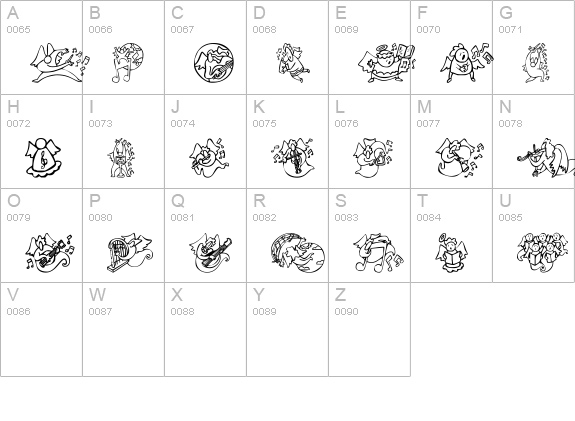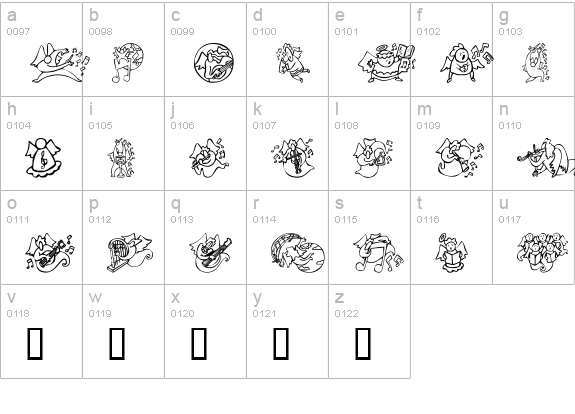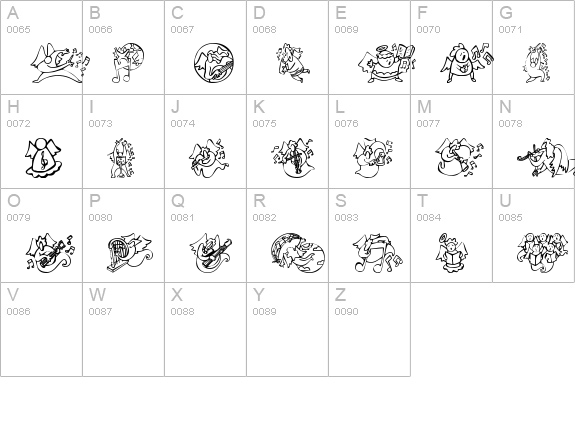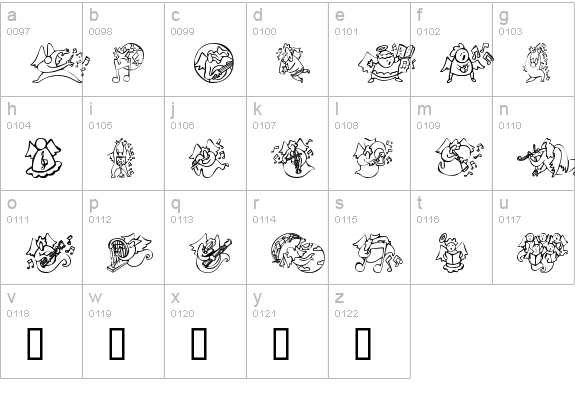
KR Music Angels Font Details
Introducing the enchanting KR Music Angels font, a whimsical and delightful typeface that will transport you to a world of musical wonder. Its graceful curves and playful design evoke the spirit of music and magic, making it the perfect choice for any project that needs a touch of whimsy. This charming font is not only visually appealing but also versatile, suitable for a wide range of creative applications. Whether you are designing a music festival poster, composing a whimsical invitation, or creating a magical logo, KR Music Angels will add a unique and captivating touch to your work. Best of all, this fantastic font is available for free download at FontsMarket.com. So go ahead and unleash your creativity with KR Music Angels – let its musical charm inspire your next project and enchant your audience.